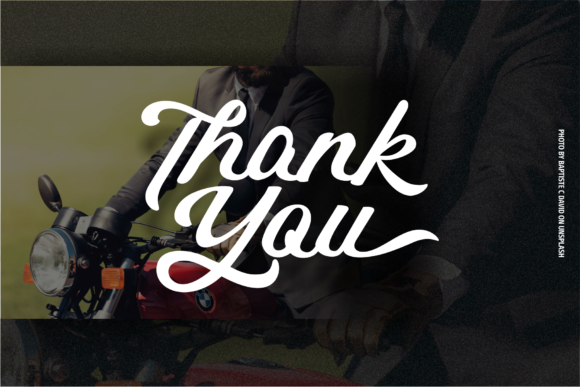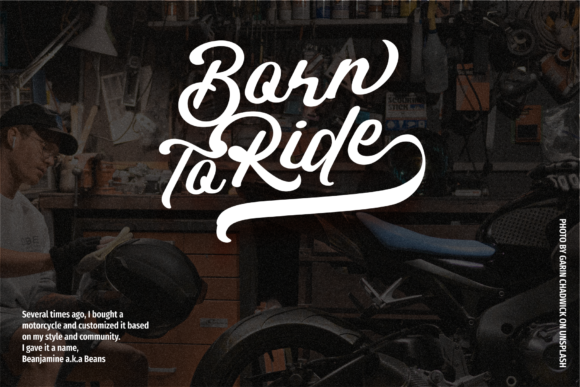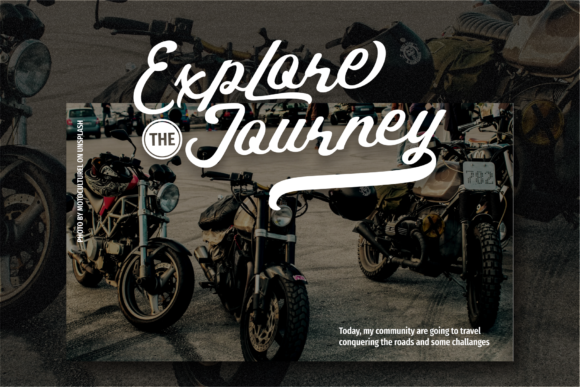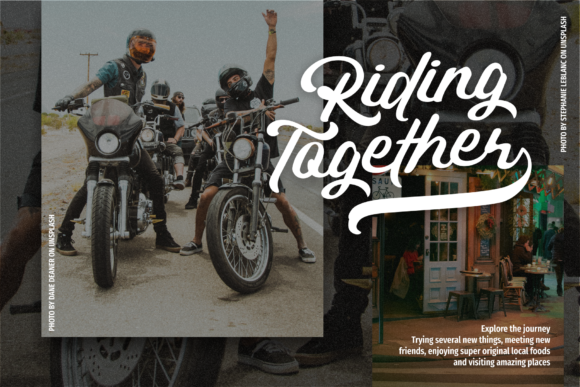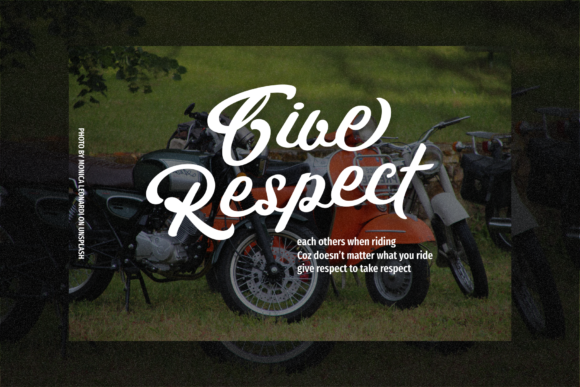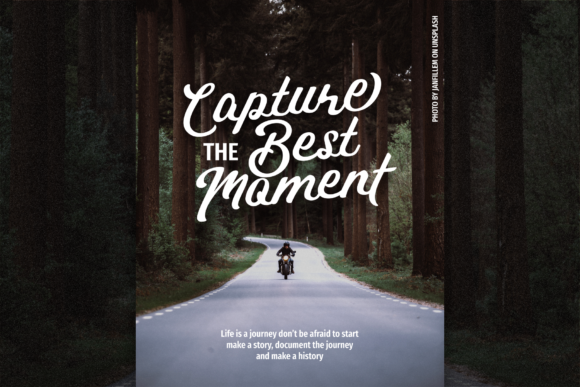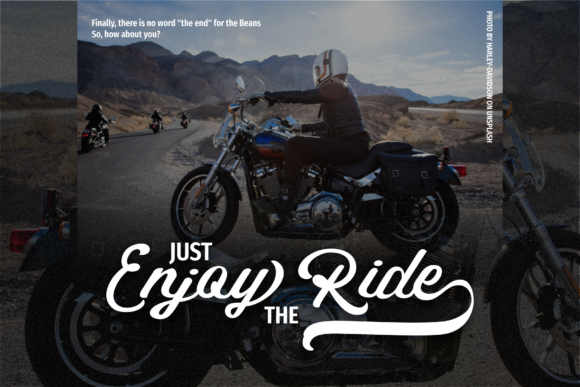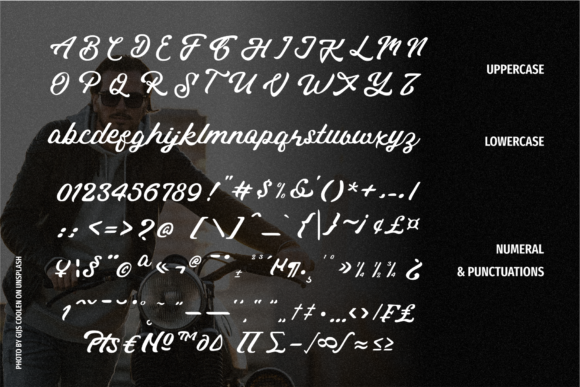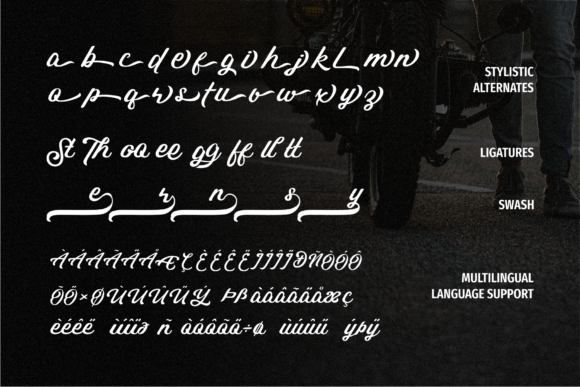
HomeScript FontsStoorie Beans Font Script Fonts Stoorie Beans Font FacebookXPinterestWhatsApp Stoorie Beans Font Poster 2 Stoorie Beans Font Poster 3 Stoorie Beans Font Poster 4 Stoorie Beans Font Poster 5 Stoorie Beans Font Poster 6 Stoorie Beans Font Poster 7 Stoorie Beans Font Poster 8 Stoorie Beans Font Poster 9 Stoorie Beans Font Poster 10 About Stoorie Beans Font Stoorie Beans is perfect for capturing the best moments. Be prepared to get inspired! DOWNLOAD ON CREATIVE FABRICAThis font is sold and delivered by Creative Fabrica. Font Canyon may earn a commission if you buy through this link. People also explored Comedy Style Font Zara Font Bookable Sans Butter Sweet Font Andita Font Belatty Font Brockies Sport Display Font Shimmer Beloved Font 400 0 TagsStoorie Beans Font Previous articleSymbian Cute FontNext articleSattiers Signature Font LEAVE A REPLY Cancel reply Comment: Please enter your comment! Name:* Please enter your name here Email:* You have entered an incorrect email address! Please enter your email address here Website: Save my name, email, and website in this browser for the next time I comment. Personal Use Free Choco Shake Font Personal Use Free Read more about this font Bollado Personal Use Free Read more about this font Hello, How Are You? Personal Use Free Read more about this font Mixed Artistry Personal Use Free Read more about this font BLOG Free Fonts Risk: Why Free Fonts Can Be Dangerous for Designers Free Fonts Risk: Why Free Fonts Can Be Dangerous for Designers Using free fonts is a common practice in web and graphic design. However, the... How to Cut Any Font on Cricut: Convert a Font to SVG (Free) Transform Your Website: Elevate Your Typography with 7 Best Web Font Generators Best Fonts for YouTube Videos: Make Your Thumbnails Stand Out